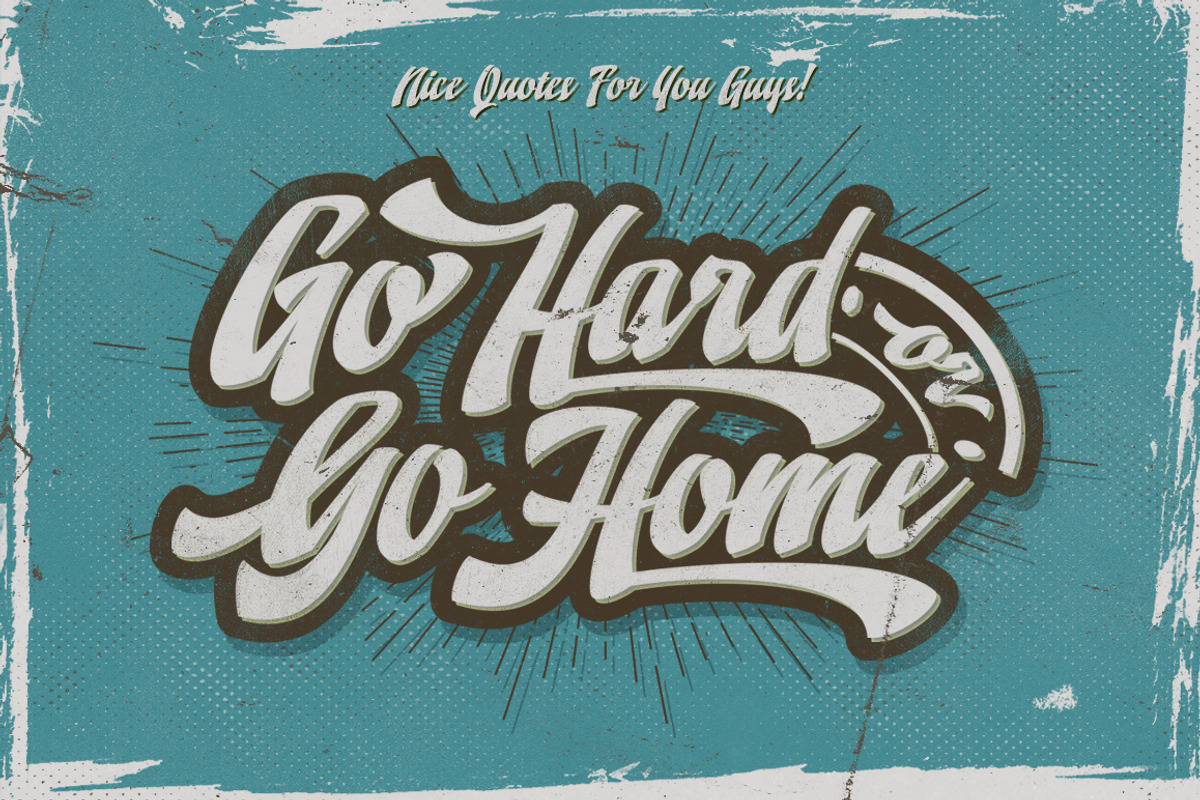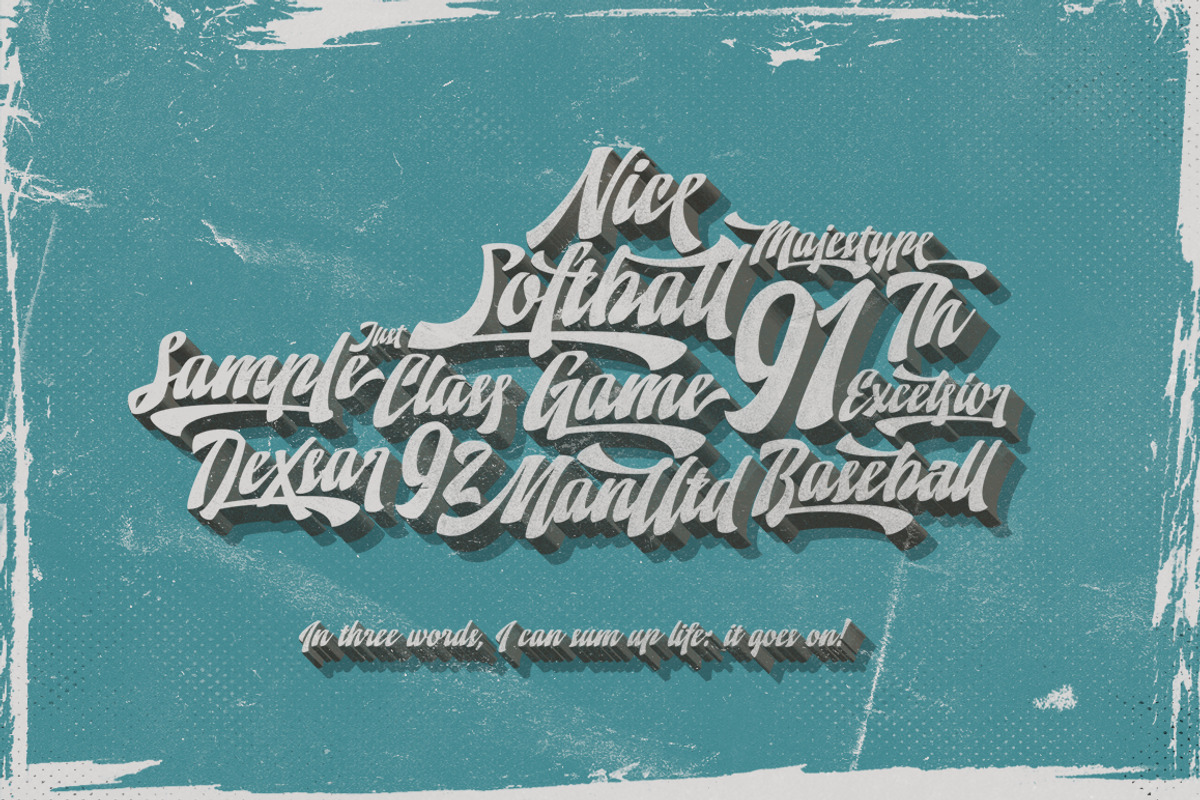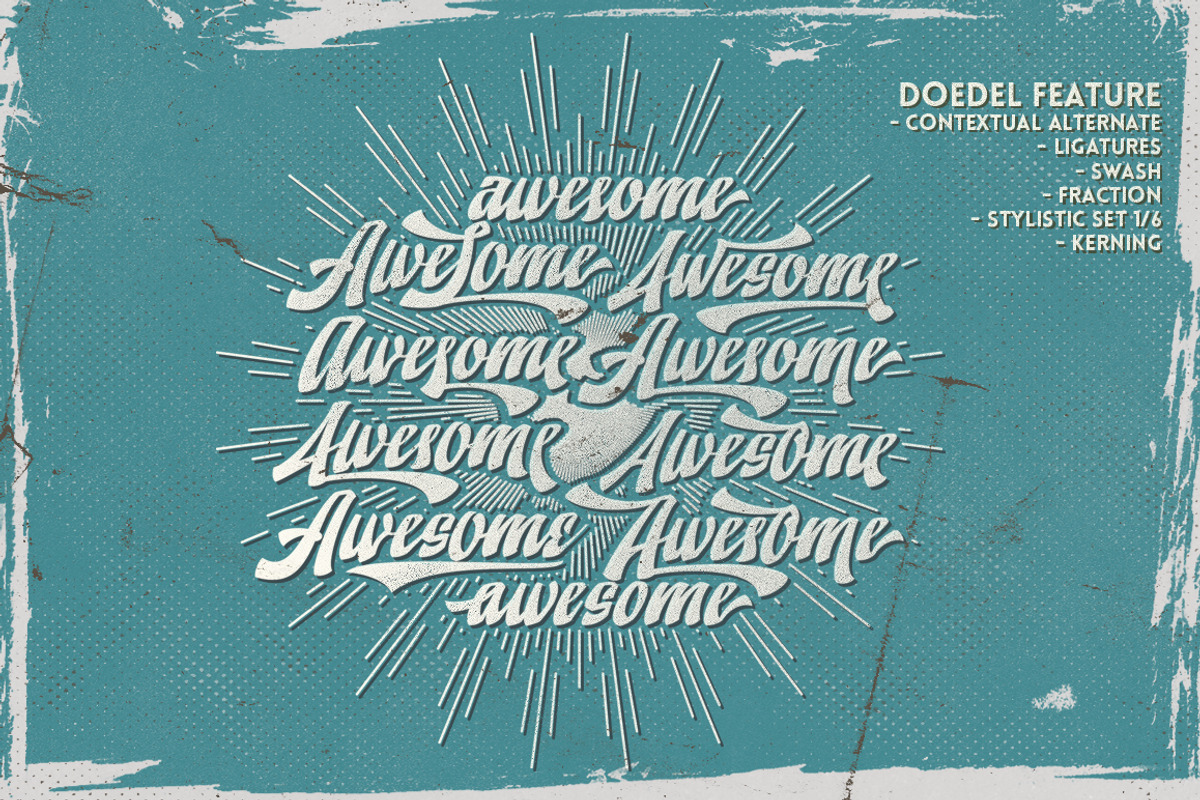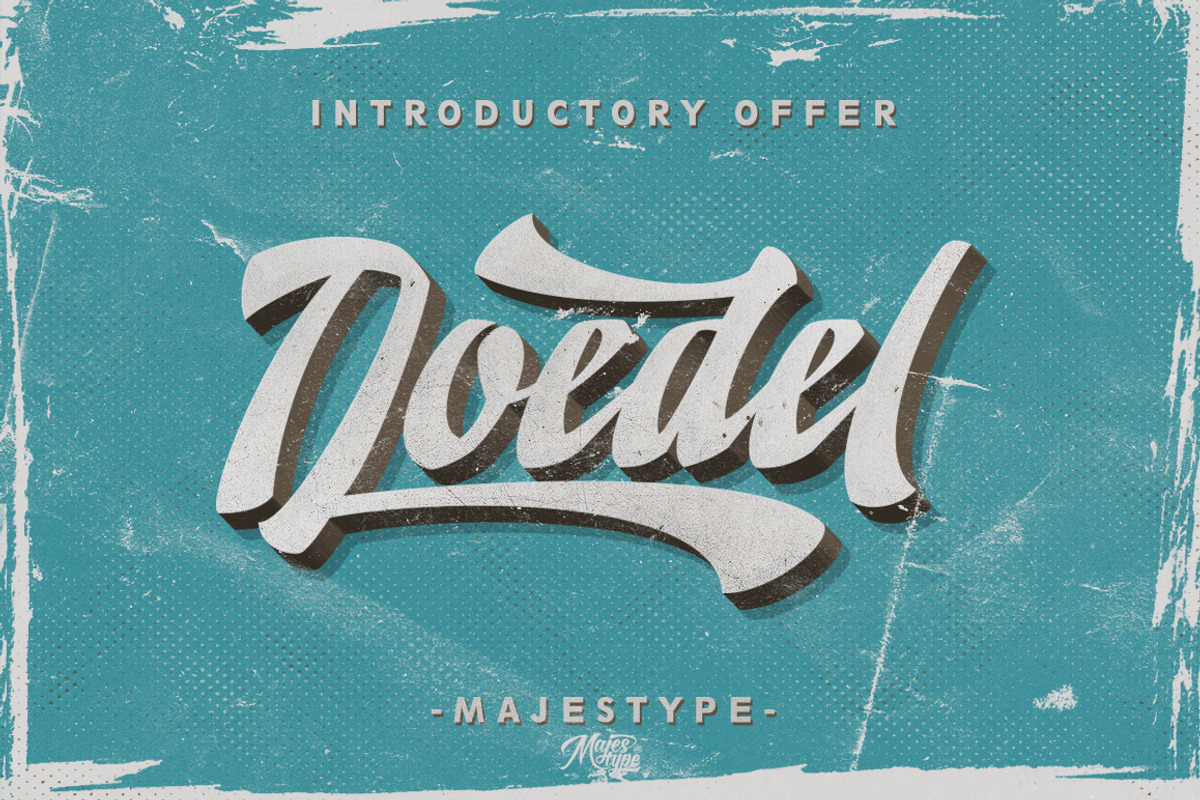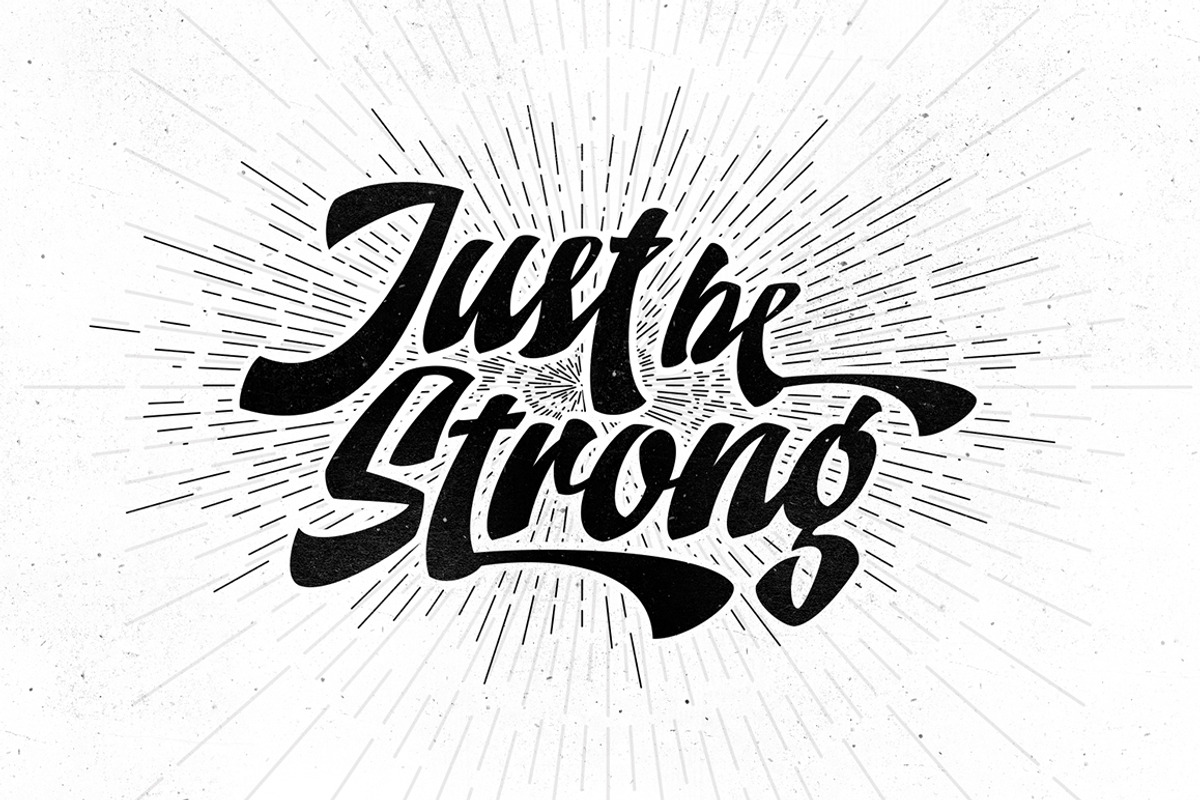
Doedel - Retro Vintage Font
Doedel - Retro Vintage Font by dexsarharryfonts is a font selected for branding, posters, packaging, typography.
- Doedel is a strong script font that comes with over 800 glyphs and is equipped with a host of OpenType features, works well at large size an
- An ideal font for retro design, vintage design, t-shirt design, headline, website title, package or etc.
- Doedel is a strong script font that comes with over 800 glyphs and is equipped with a host of OpenType features, works well at large size an
- An ideal font for retro design, vintage design, t-shirt design, headline, website title, package or etc.
Why Doedel - Retro Vintage Font is worth a look
Doedel - Retro Vintage Font by dexsarharryfonts fits naturally into Branding, posters, packaging, typography.